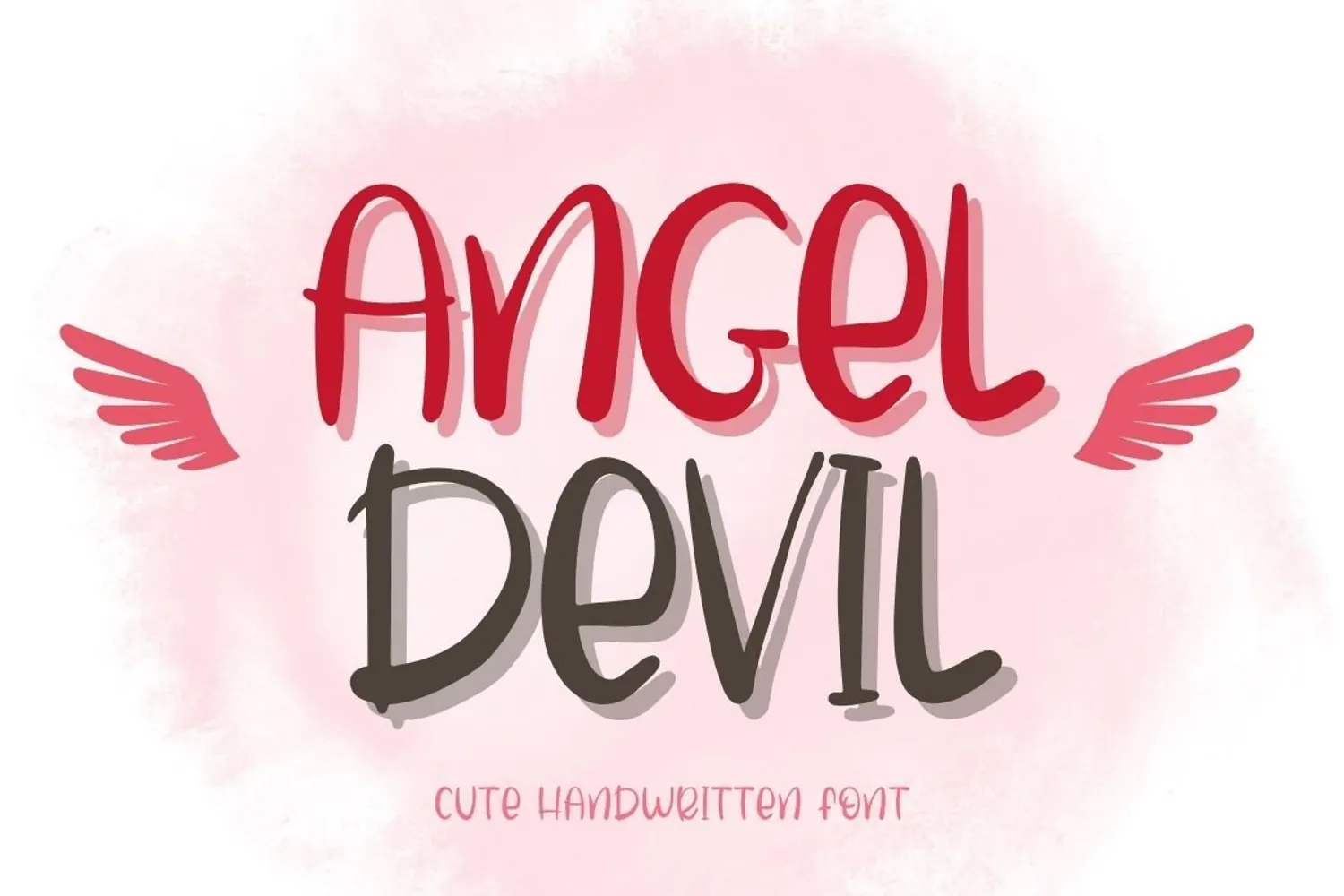
Angel Devil is a cute handwritten font with a playful tall letter style and charming angel-and-devil details. The font has a casual handmade feel, making it great for sweet quotes, Valentine designs, Christmas crafts, food labels, coffee quotes, greeting cards, stickers, shirts, mugs, tote bags, social media graphics, and printable projects.